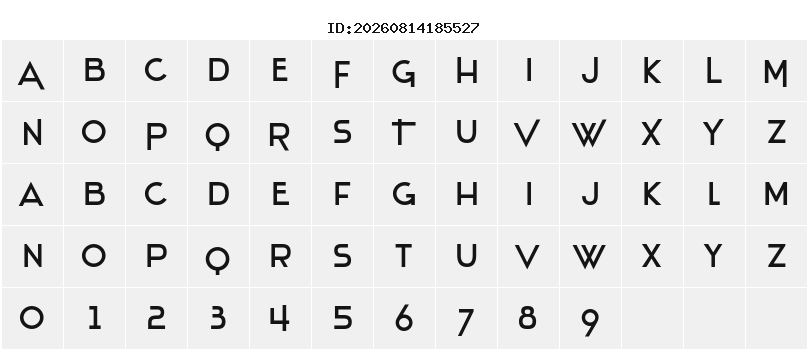
Stentiga Preview
• Font Name: Stentiga
• Full Font Name: Stentiga-Regular
• Designer: Ray Larabie
• Manufacturer: Ray Larabie
About Stentiga.ttf
Stentiga.ttf is a modern, elegant sans-serif font designed for ultimate readability and visual harmony. Perfect for branding, headlines, web design, and print materials.